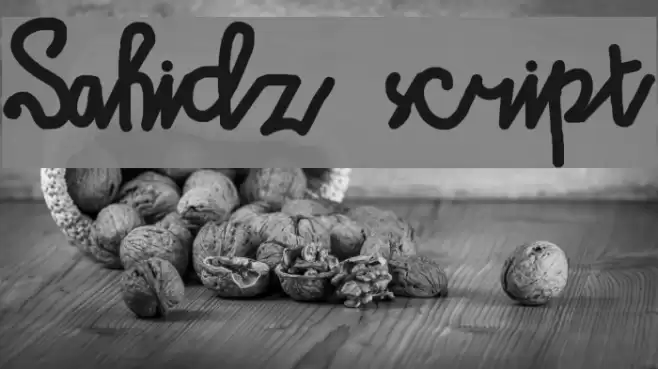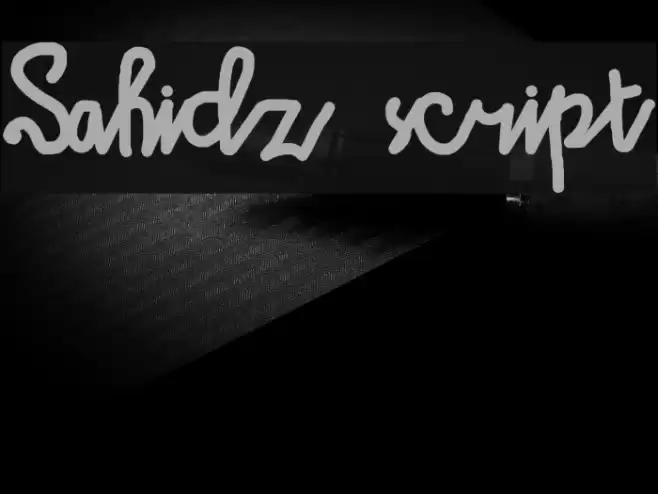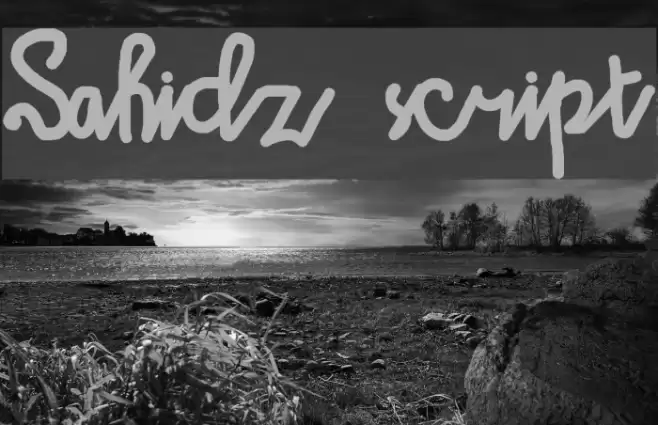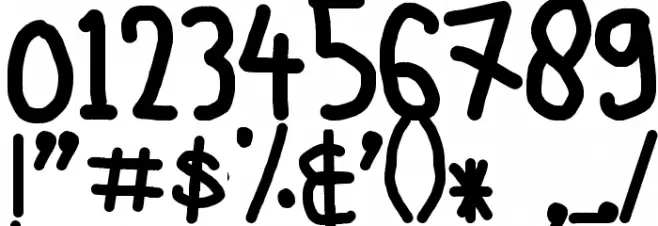
Sahidz script Font
Sahidz script Description
This font features a playful and casual script style, characterized by its hand-drawn appearance and fluid strokes. The uppercase letters are bold and slightly irregular, giving a sense of spontaneity and creativity. The lowercase letters maintain a consistent flow, with some letters featuring loops and curls that add to the font's charm. Numbers are bold and easy to read, while special characters are designed to match the overall playful aesthetic. The font's informal style makes it suitable for projects that require a personal touch or a sense of fun.
A playful, hand-drawn script font with bold, fluid strokes from Handwritten fonts.
- Proposed Projects: Ideal for greeting cards, invitations, children's books, and creative branding.
- Overall Style: Casual, Playful
- Use Case: Logos, Headlines, Creative projects